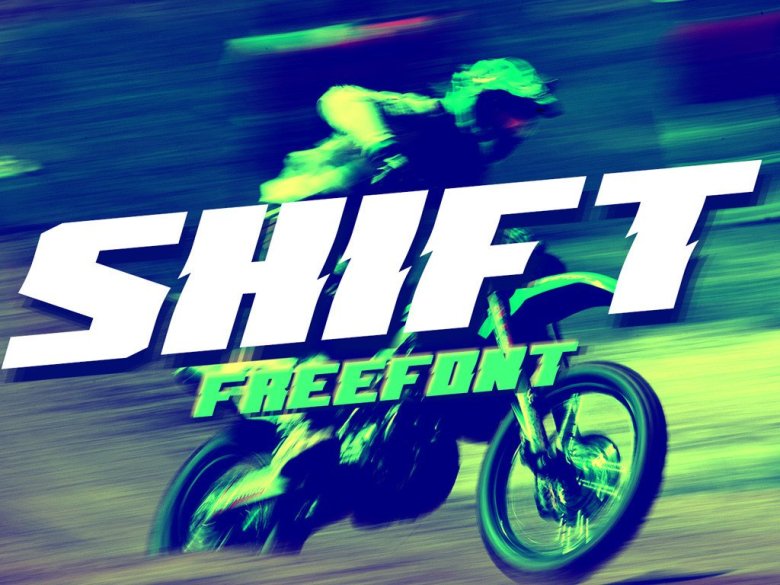
Shift Font
I want to introduce to you a new display font. That is Shift Font! Shift designed and shared by Alphabet Agent. Shift is a bold italic font inspired by extreme, action, power and motor sports. Those all will make you work easily to create : Posters, Logos, Print, Quotes, Headers, Clothing, Labels, Packaging etc.
Shift Display Font